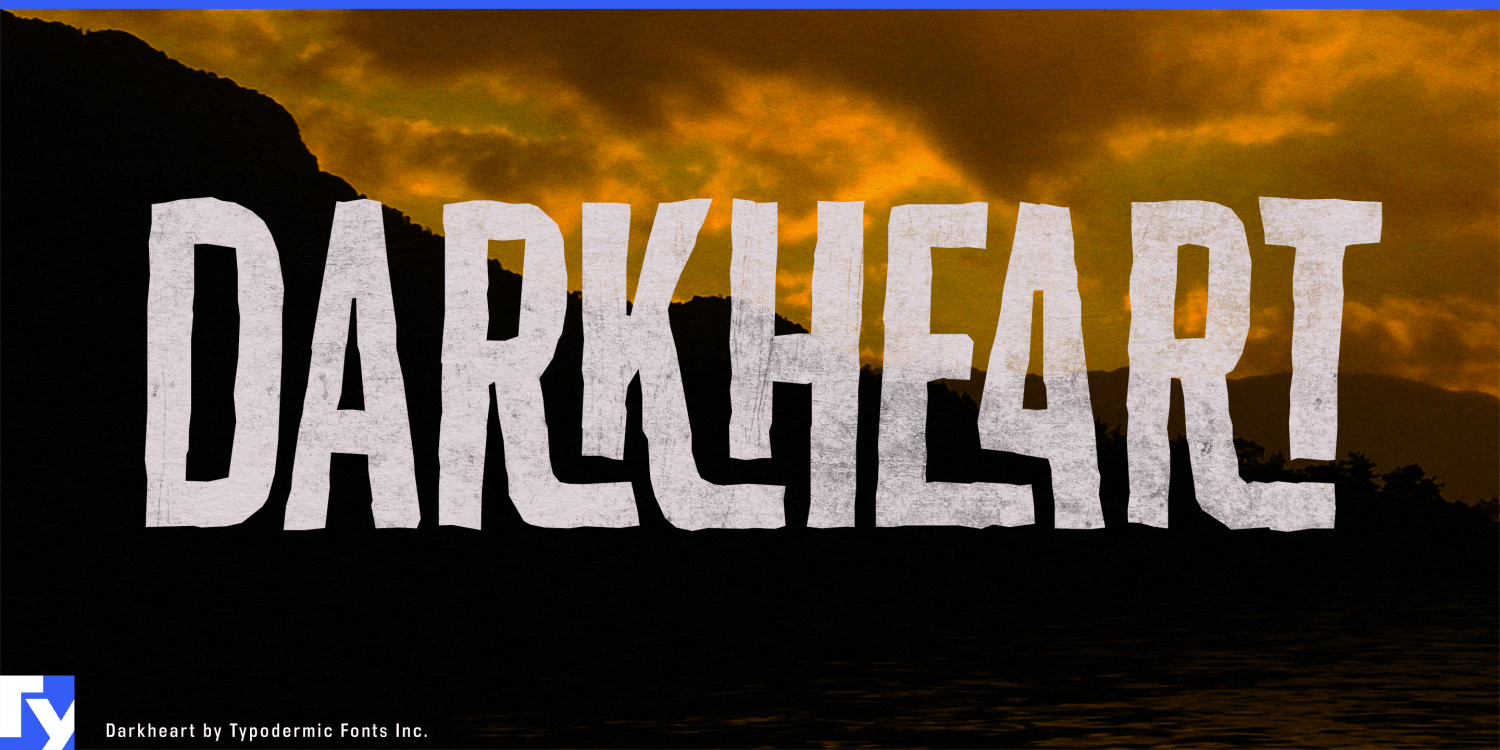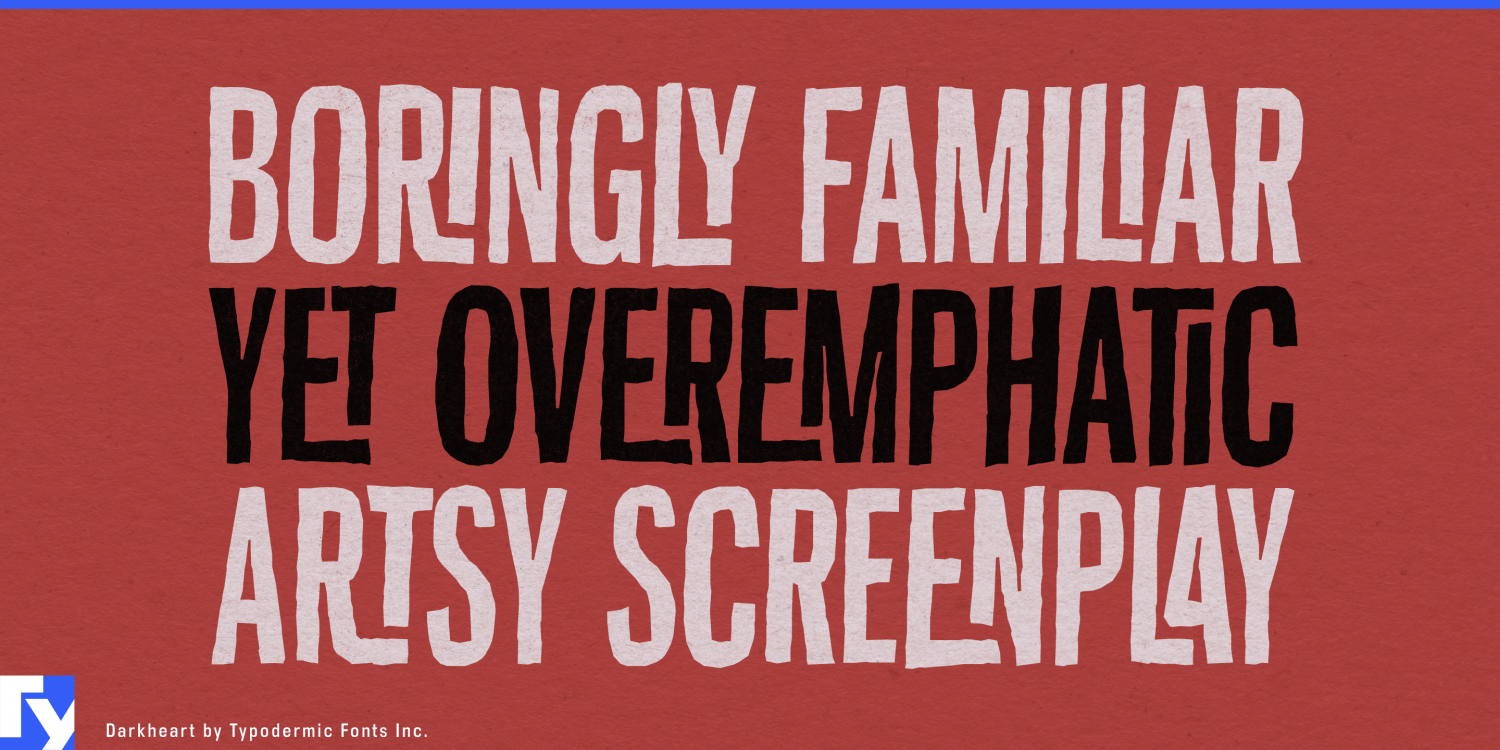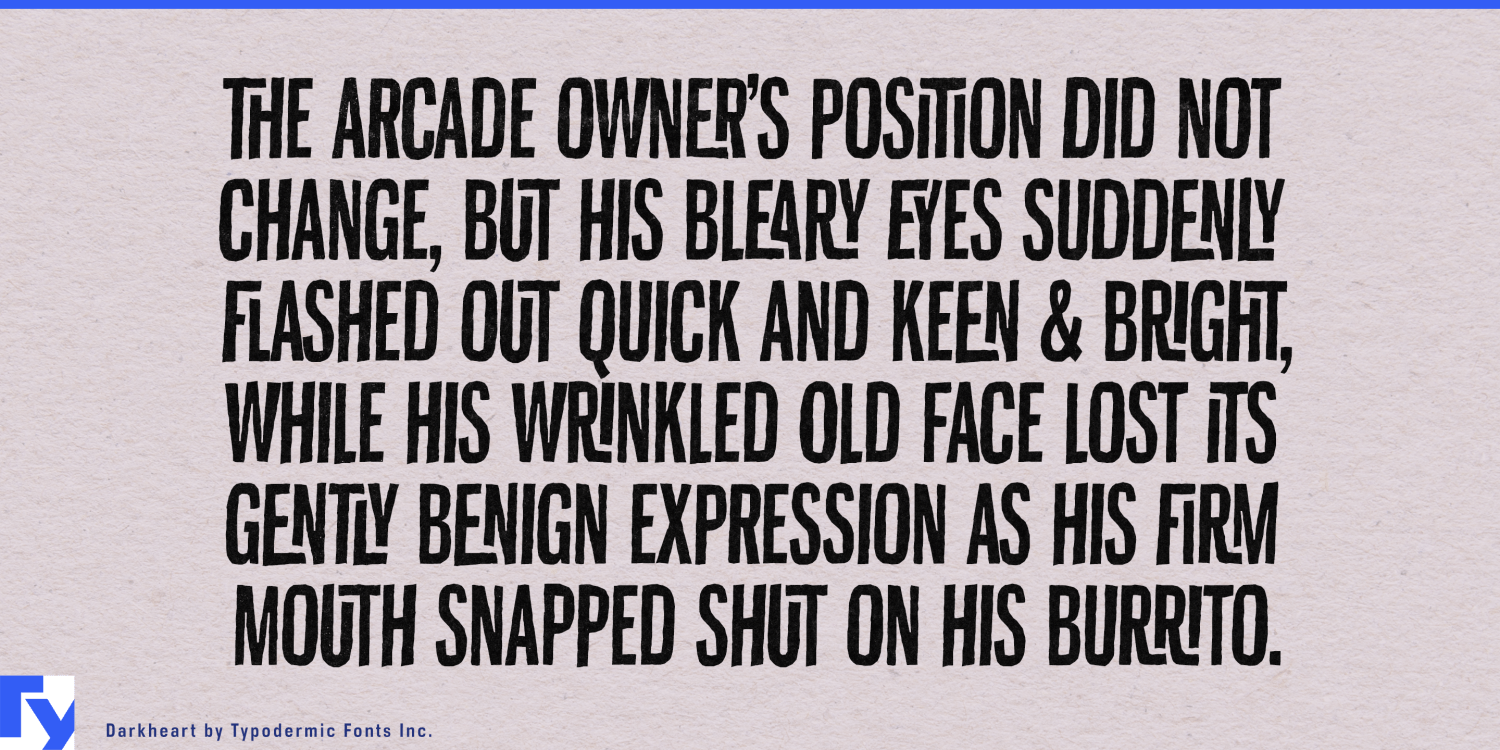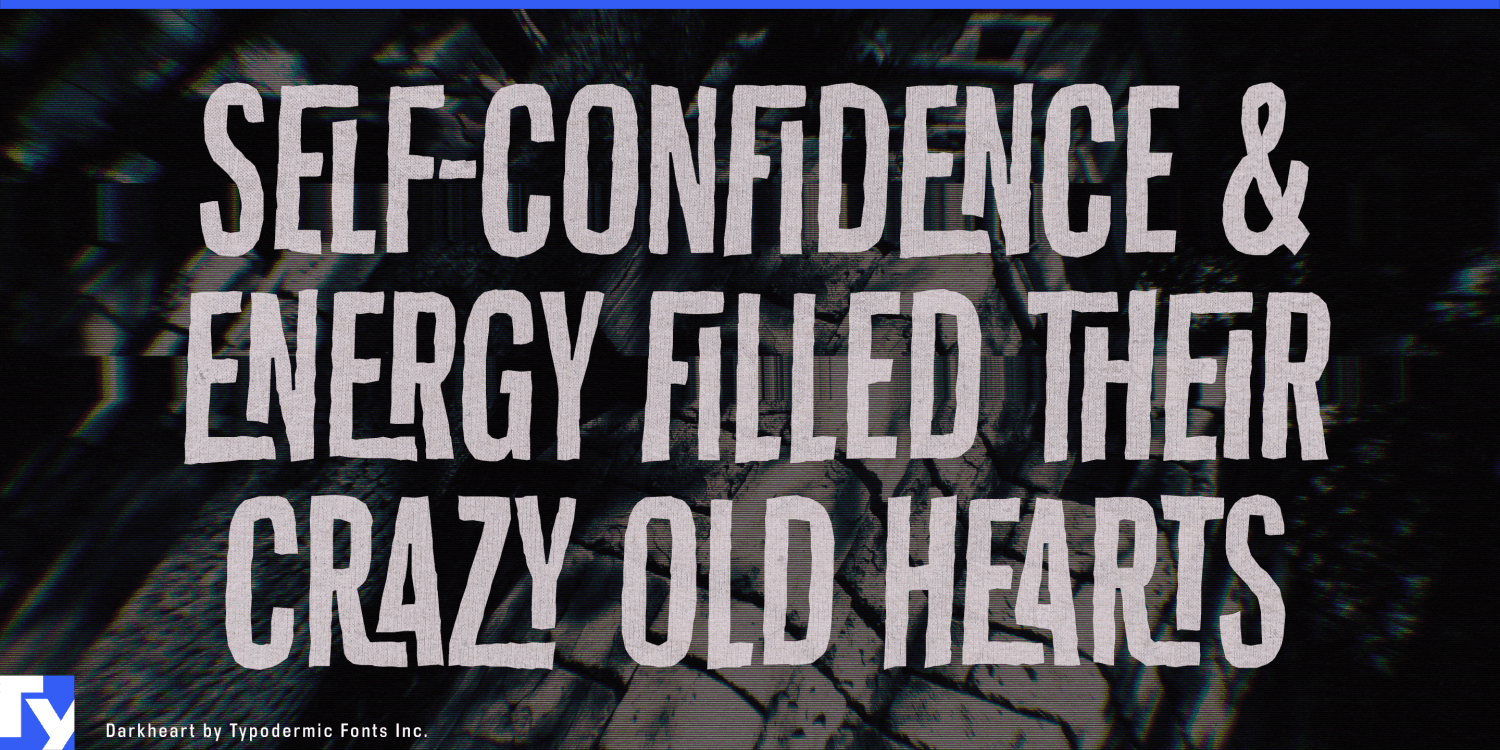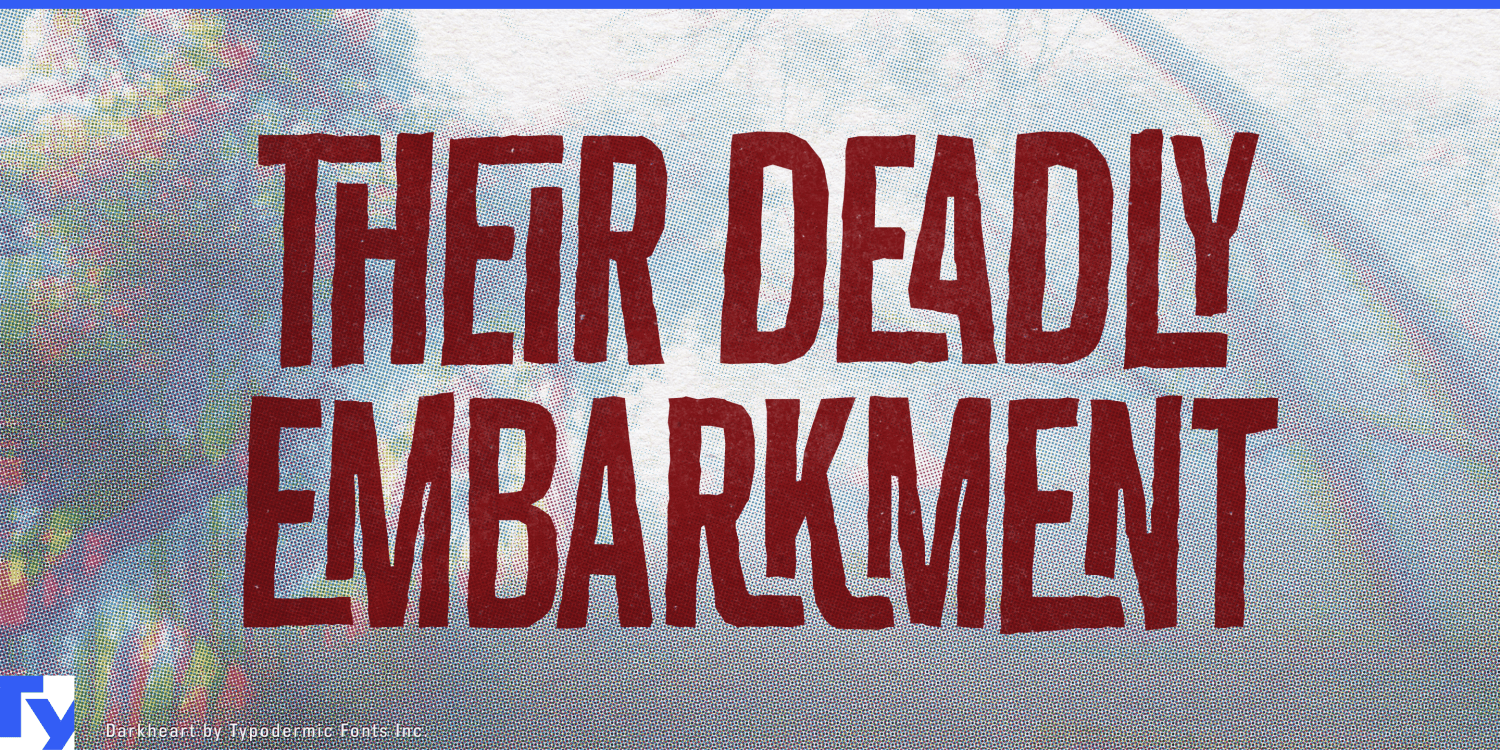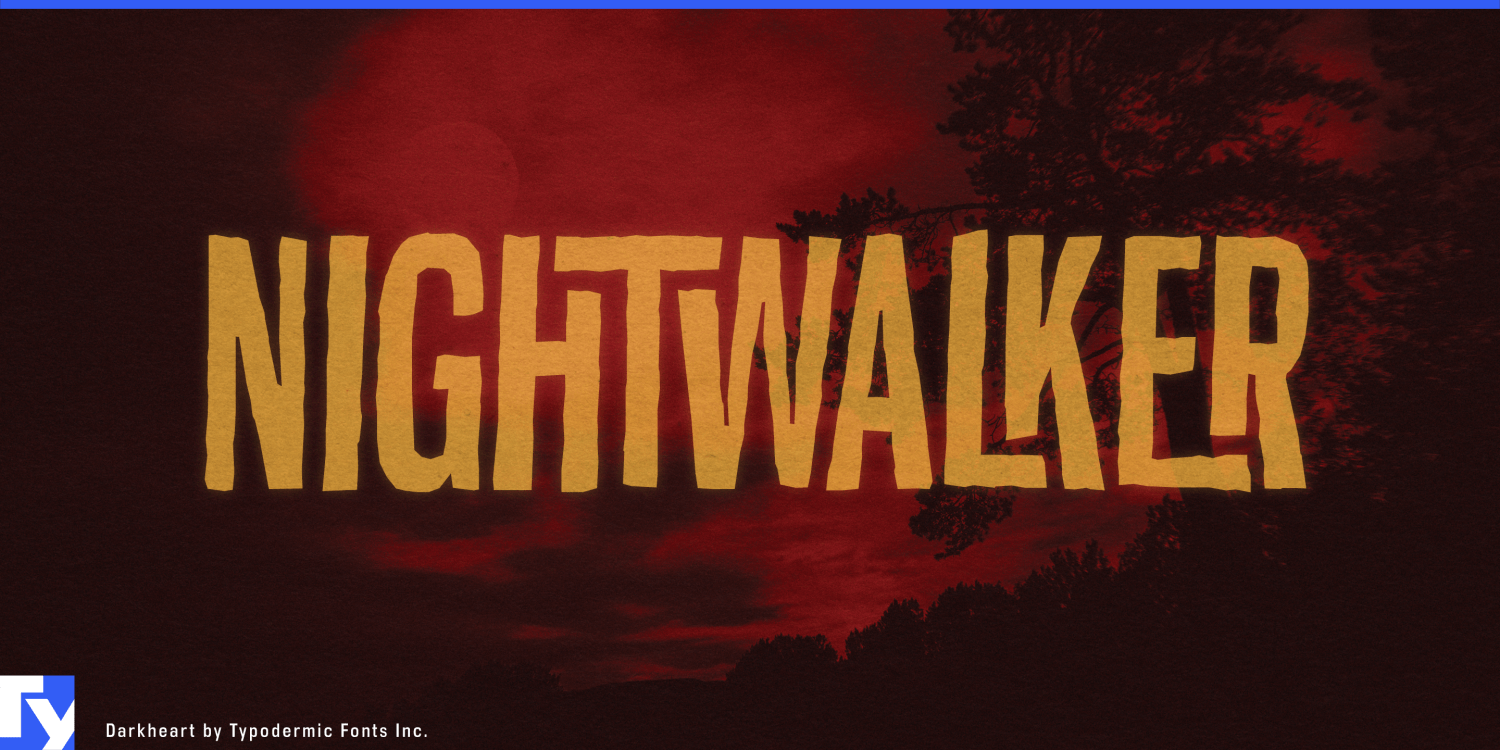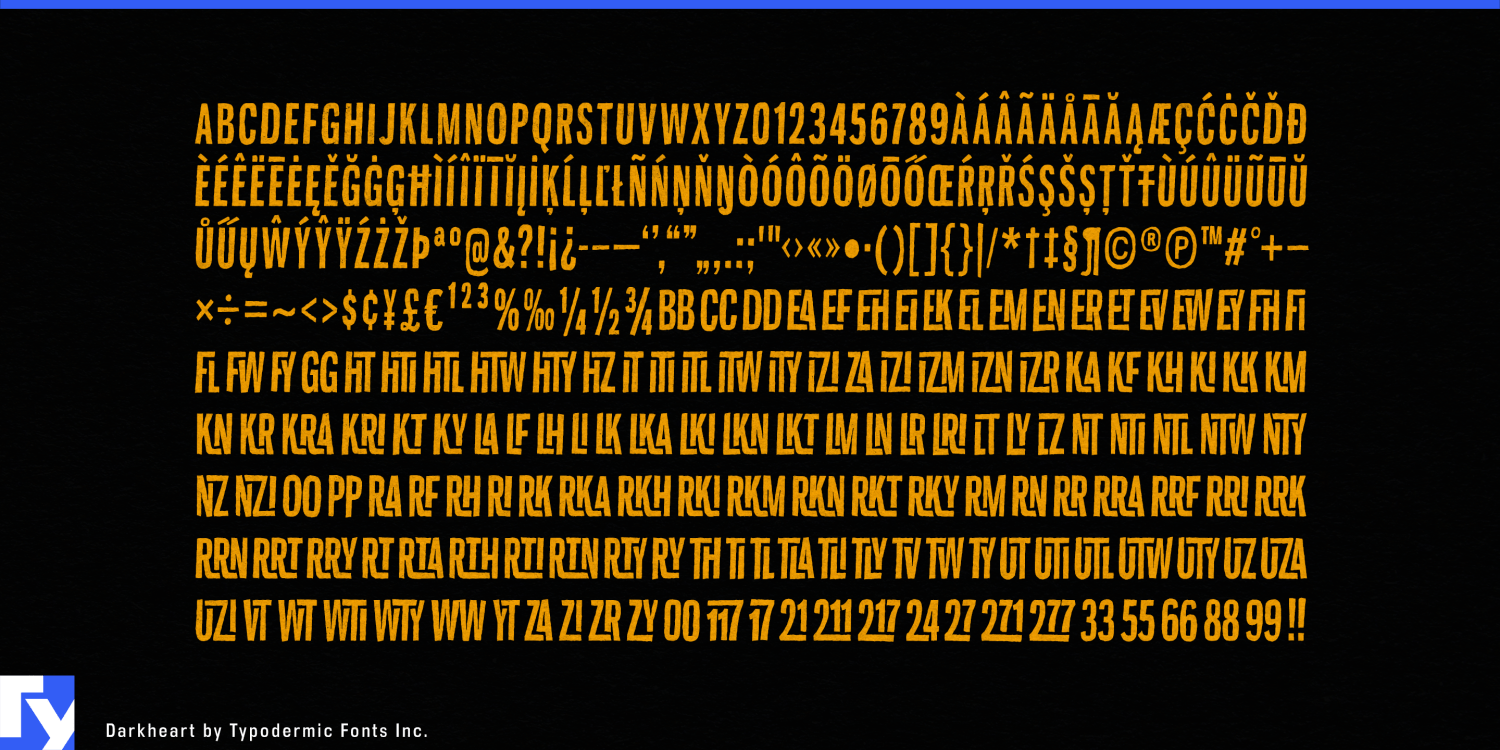
Darkheart
Font Family by Typodermic
Darkheart is an all-caps horror typeface drawn in tall, crooked strokes that look cut from paper and fitted together by hand. Its natural setting is 1960s drive-in cinema: vampire castles, radioactive monsters, alien invasions, haunted laboratories, and trailers promising something unspeakable after midnight. It gives horror film posters, streaming thumbnails, trailer titles, comic mastheads, paperback covers, and VHS or Blu-ray reissues the compressed urgency of a hand-built title card.